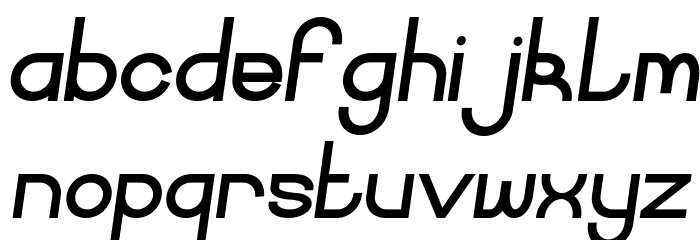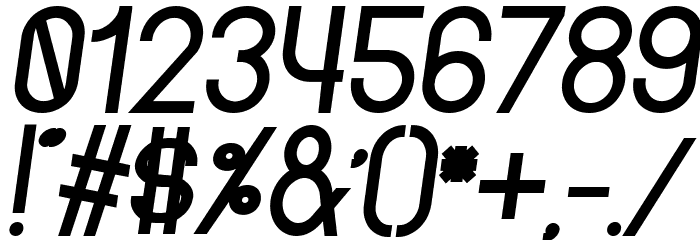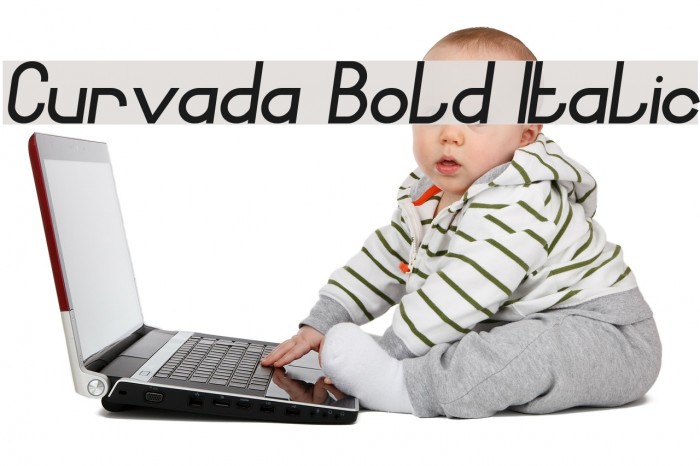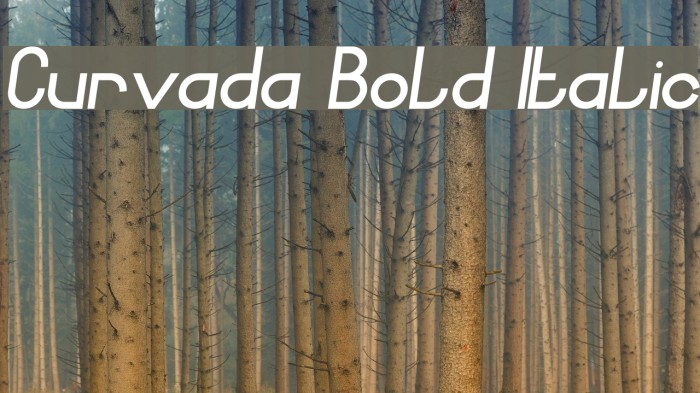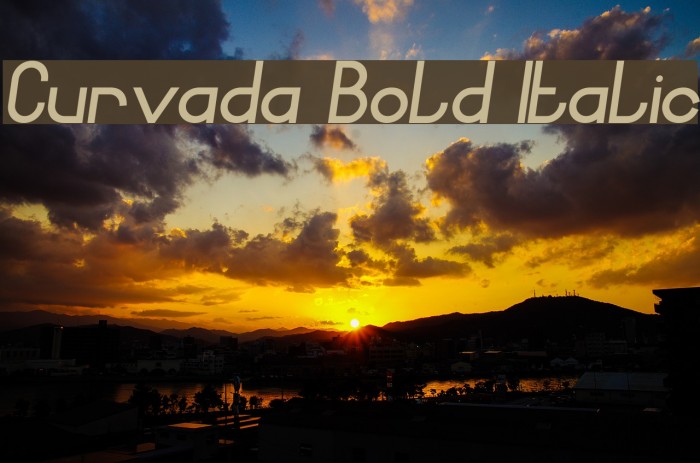
Curvada Bold Italic Font
This font features a bold and italicized style with a modern and slightly futuristic appearance. The characters are elongated with a slight slant, giving them a dynamic and energetic feel. The uppercase letters are tall and narrow, while the lowercase letters maintain a consistent flow with rounded edges. Numbers and special characters follow the same stylistic cues, ensuring uniformity across all glyphs. The overall design is clean and legible, making it suitable for various creative applications.
- Font: Curvada Bold Italic
- Weight: Bold Italic
- Proposed Projects: Ideal for branding, advertising, and editorial design where a modern and energetic look is desired.
- Category: Sans-Serif